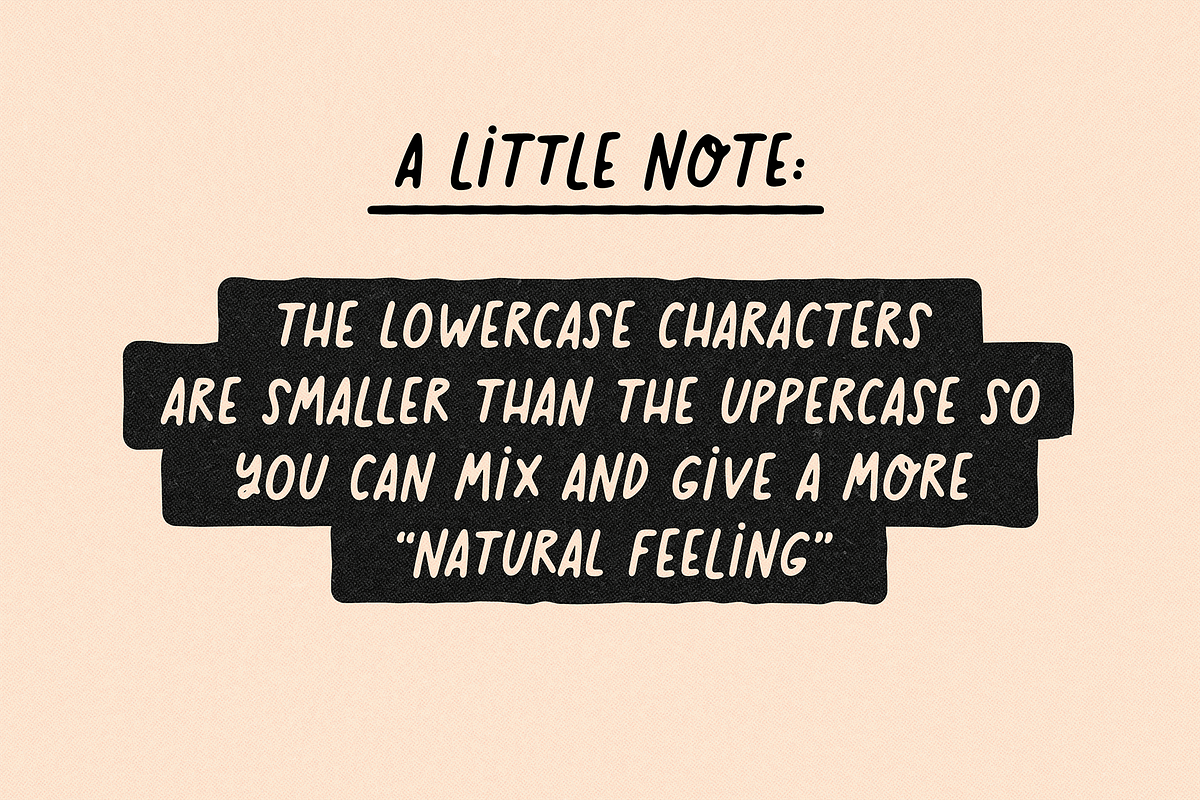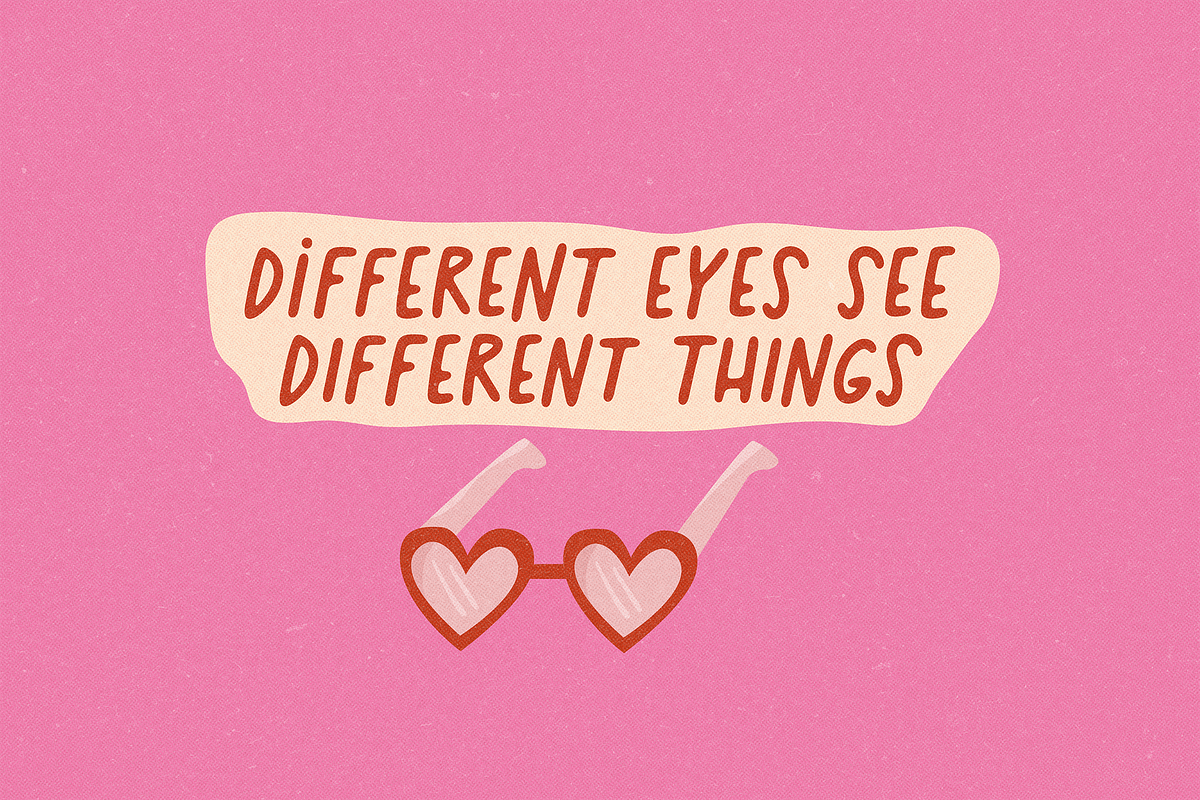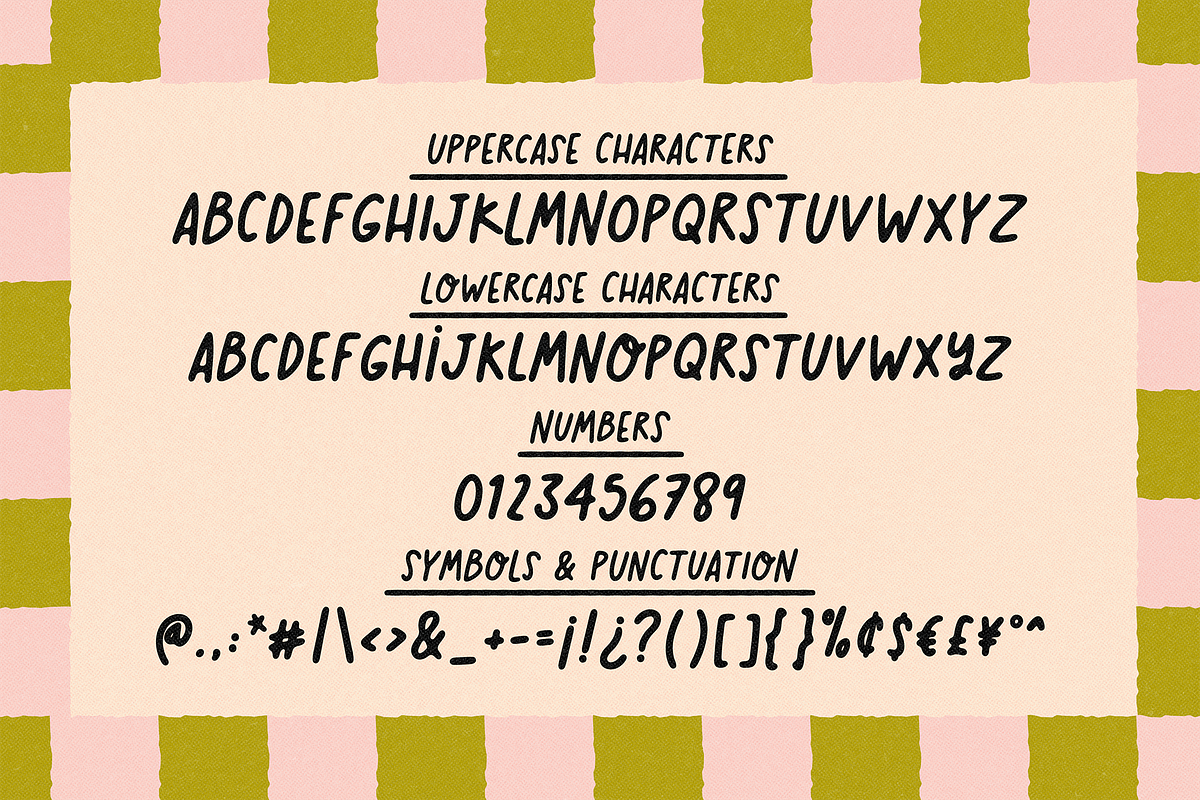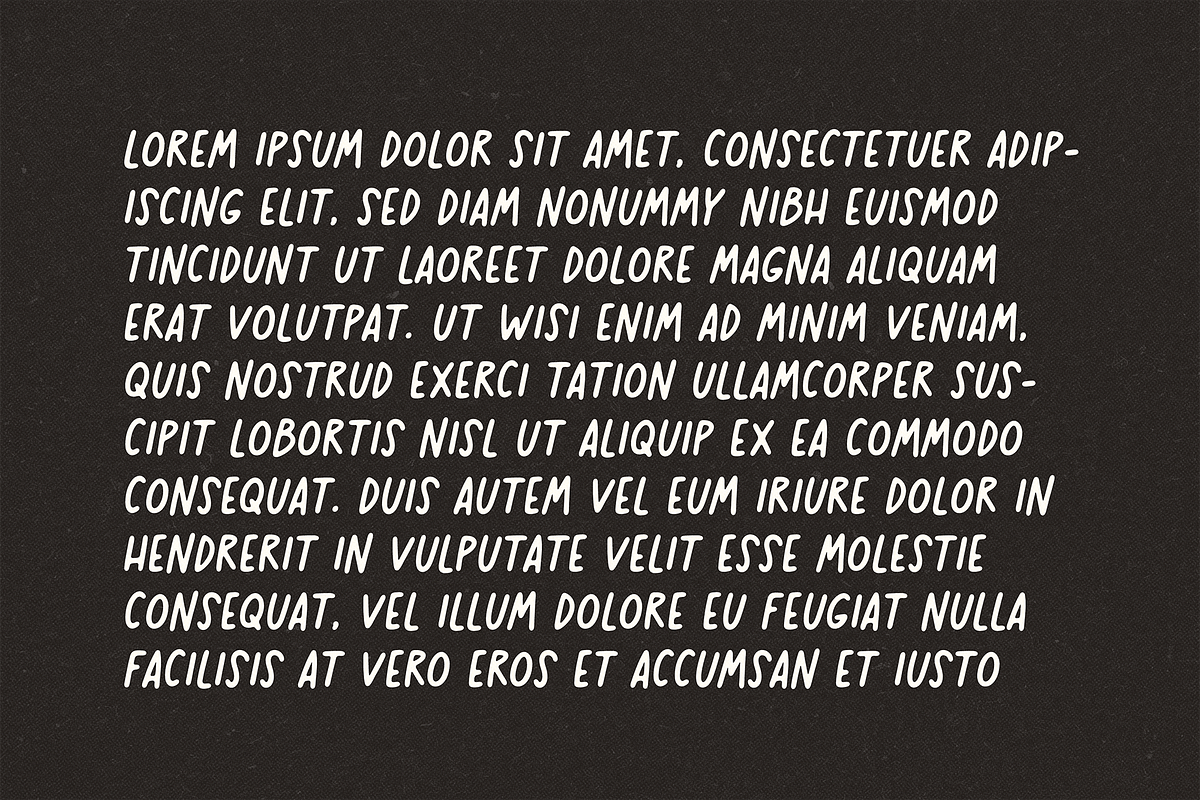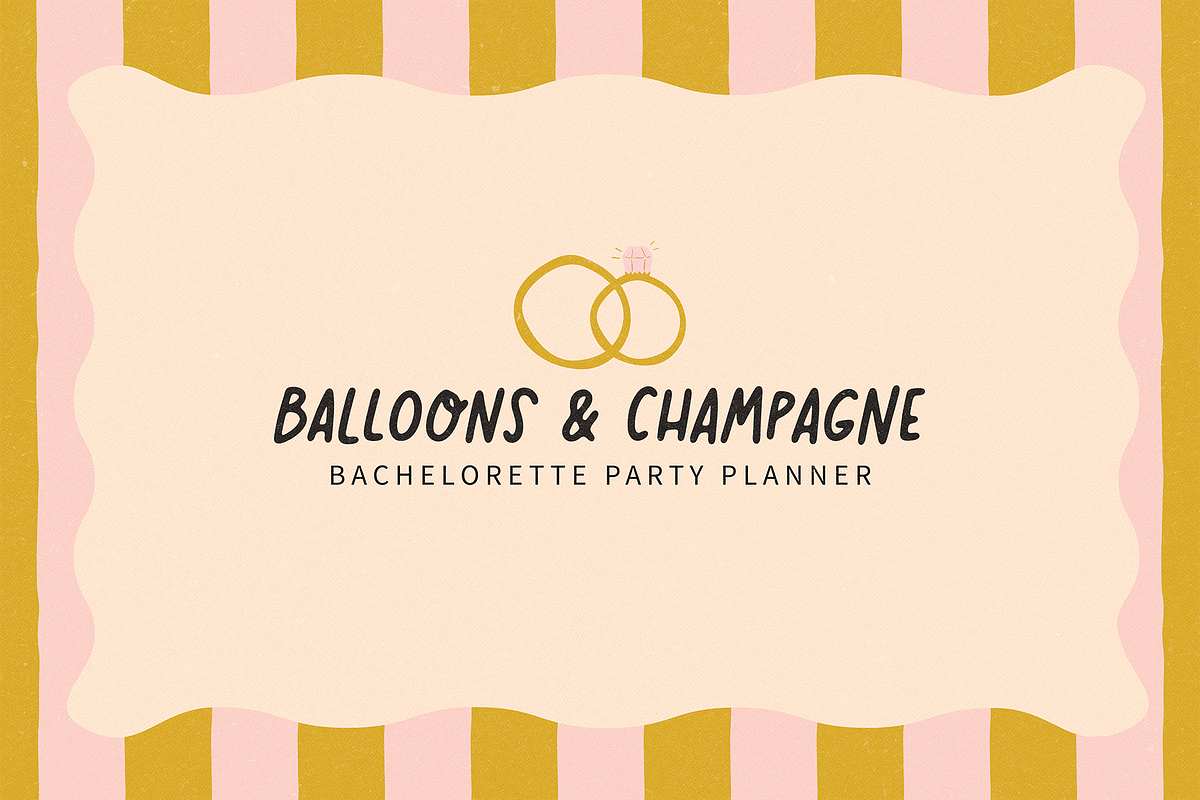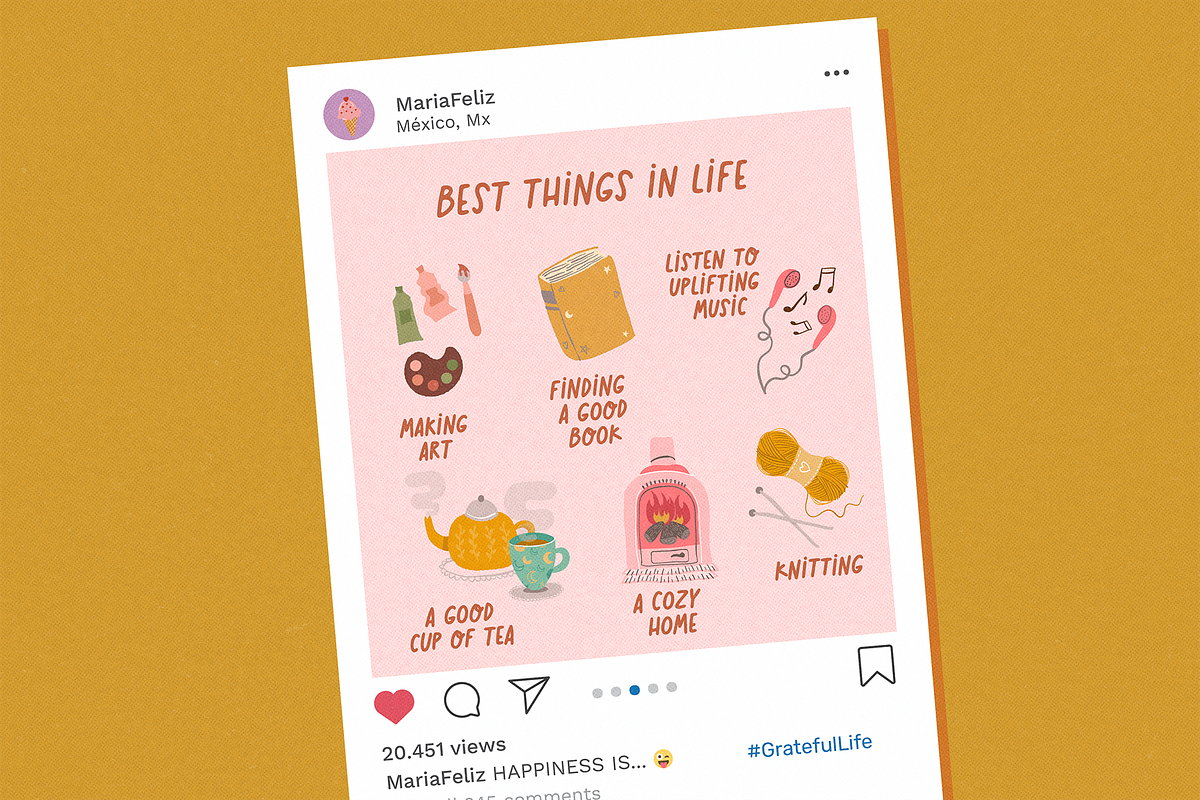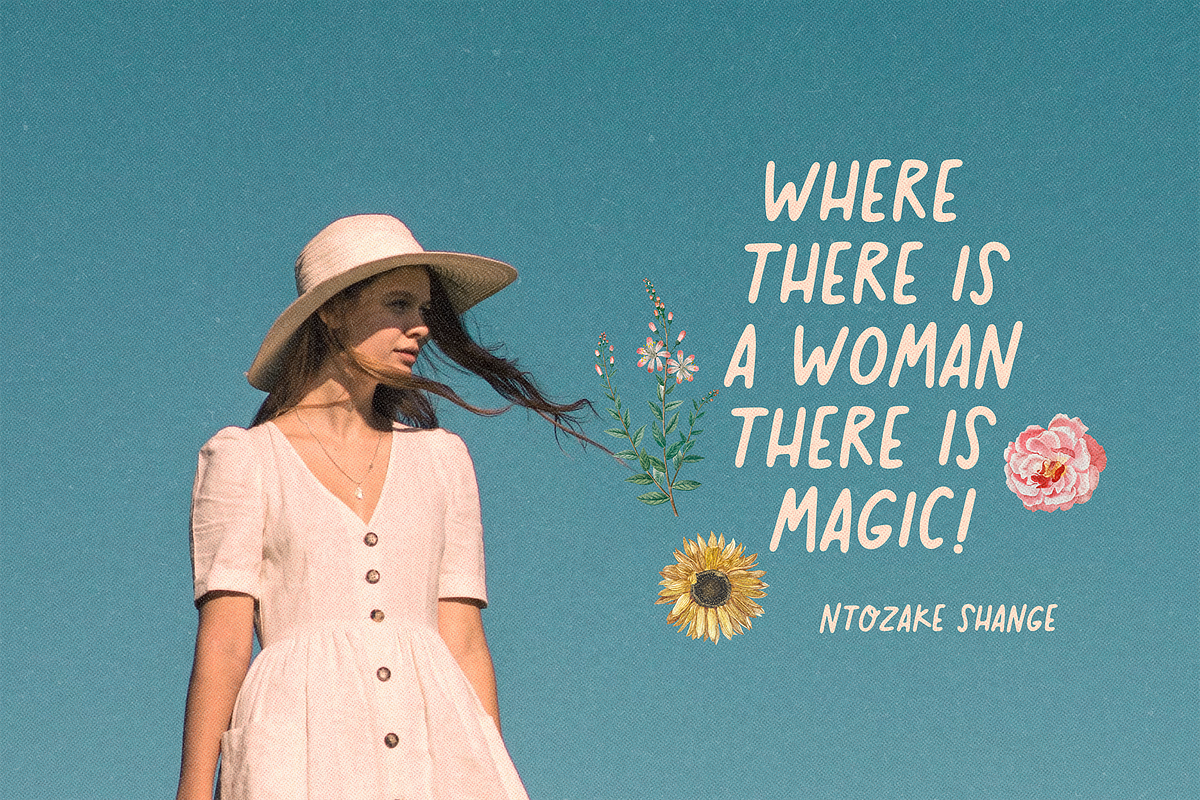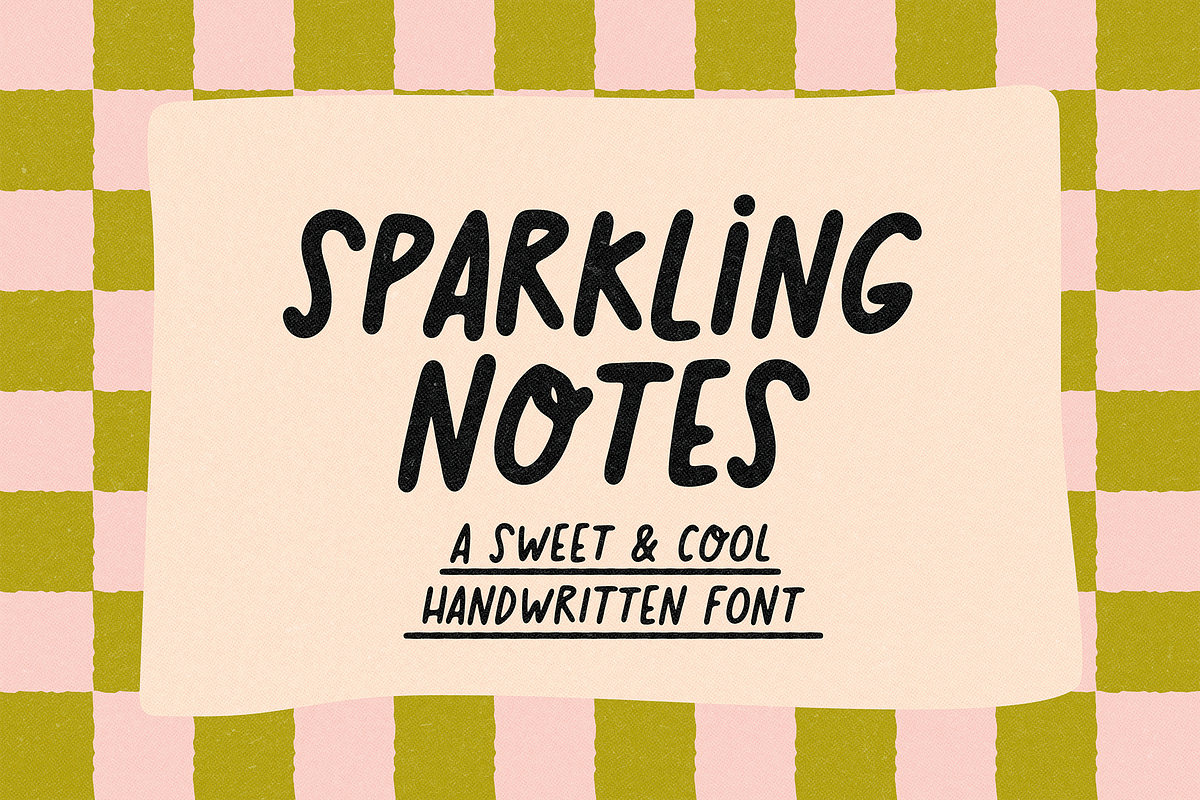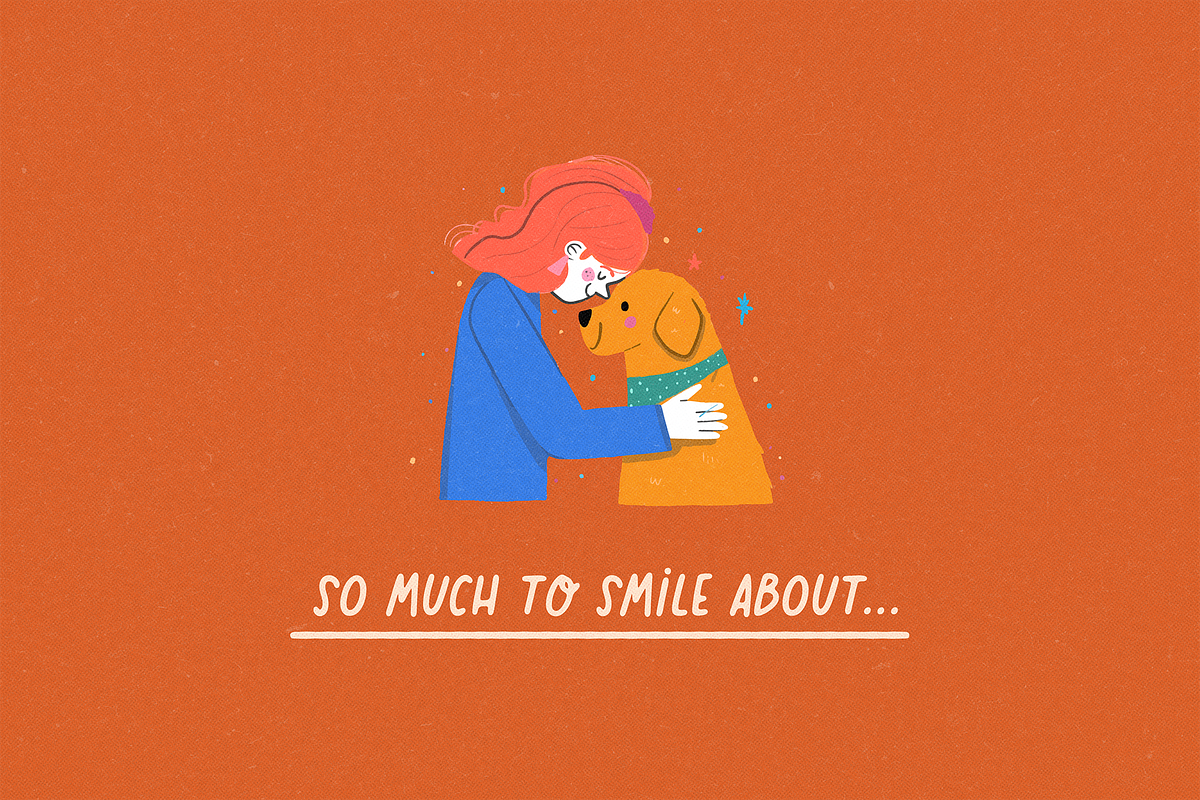
Sparkling Notes | Handwritten Font
Sparkling Notes – A Handwritten Font with Organic Charm
Sparkling Notes is a tall, cool, and versatile handwritten font designed to add a personal touch to any project. Originally crafted for my personal use and refined over time, this organic font is perfect for logos with a minimalist vibe, school notes, social media posts, and illustrations.
Why You'll Love " Sparkling Notes":
- Tall, handwritten style
- Ideal for logos with a minimalist vibe, notes, social media, and more!
- Mix uppercase and lowercase for a natural look
- Supports multiple languages
Bring a playful, handcrafted vibe to your designs with Sparkling Notes!